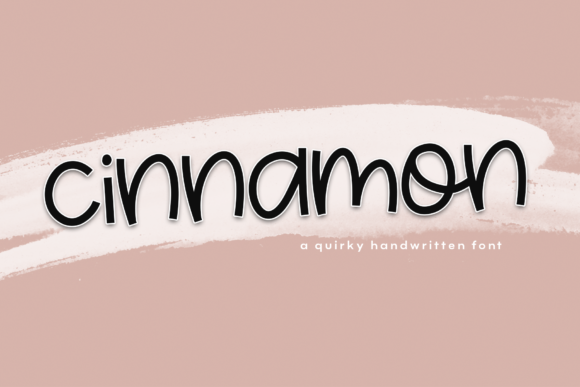
Introducing Cinnamon Font, the exquisite Display font crafted by the ingenious minds at KA Designs. Cinnamon is not just a font; it's an expression of art, a journey into the realm of captivating typography. Prepare to be mesmerized by its enchanting curves, its playful strokes, and its undeniable charm.
With Cinnamon Font, your creative projects will transcend the ordinary and blossom into masterpieces. Its whimsical nature adds a touch of magic, transforming your words into visual poetry. Whether you're designing wedding invitations, greeting cards, posters, or social media graphics, Cinnamon Font will elevate your designs to new heights of beauty and elegance.
Cinnamon Font's versatility is truly remarkable. Its graceful lines and elegant curves lend themselves effortlessly to a wide range of applications. From heartfelt love letters to corporate presentations, Cinnamon Font adapts seamlessly, adding a touch of sophistication and charm to every word.
But Cinnamon Font is more than just versatile; it's an experience. Its carefully crafted characters evoke emotions, drawing your readers into your words and captivating their attention. With Cinnamon Font, your messages will resonate more deeply, leaving a lasting impression on your audience.
So why settle for ordinary fonts when you can embrace the extraordinary? Allow Cinnamon Font to take your creative projects to new heights, adding a touch of magic to every word. Step into the world of Cinnamon Font and let your imagination run wild.